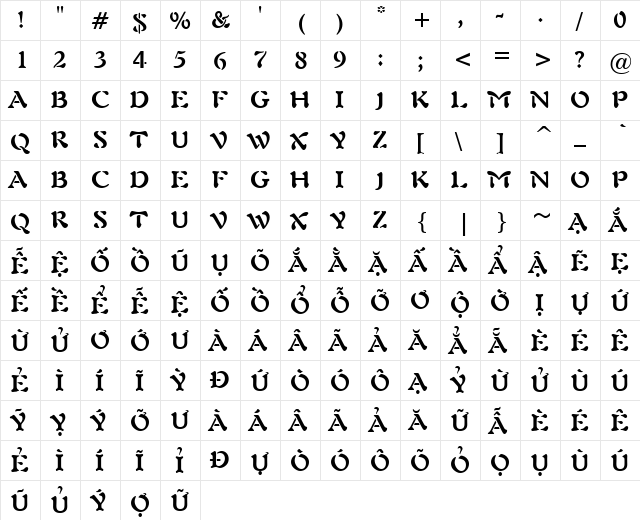
VI Hong Mai Hoa Normal
Design Context for VI Hong Mai Hoa Typeface
VI Hong Mai Hoa is a composed and adaptable typeface that performs quietly and consistently across a wide range of design contexts.